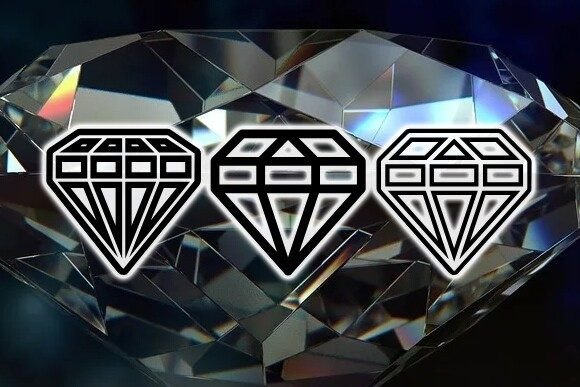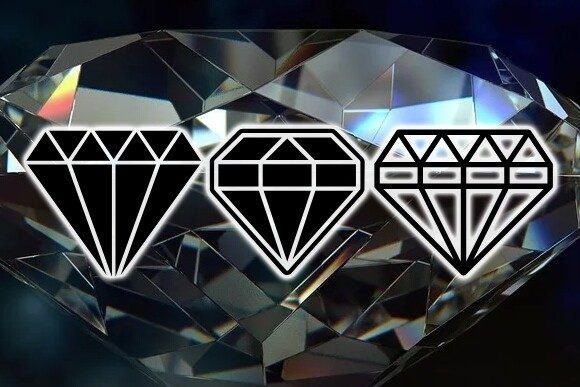
The Designer’s Delight: Unlocking the Power of Diamondo Font
Ah, the thrill of working on a new design project! The blank canvas, the endless possibilities, and the pressure to create something amazing. I recall a particularly challenging project where I was tasked with creating a poster for a luxury jewelry brand. The client wanted something elegant, sophisticated, and eye-catching. As I scrolled through my font library, I stumbled upon Diamondo – a dingbat font that would change the game.
So, what makes Diamondo so special? Here are a few things that I absolutely love:
- ✨ Unique and Versatile: Diamondo is an awesome dingbat that can be used in a variety of designs, from posters and flyers to social media graphics and more.
- ✅ Elegant and Sophisticated: The font’s luxurious feel makes it perfect for high-end brands, weddings, and other special occasions.
- 💫 Easy to Use: Diamondo is incredibly easy to use, even for those who are new to working with dingbat fonts.
Of course, no font is perfect, and Diamondo has a few quirks:
- 🤔 Limited Character Set: As a dingbat font, Diamondo has a limited character set, which can be a bit restrictive for some users.
- ⚠️ Not Suitable for Body Text: Diamondo is best used as an accent font or for headlines, as it’s not suitable for body text.
Diamondo was inspired by the luxury and glamour of diamonds. The font’s designer wanted to create a dingbat font that would evoke the feeling of high-end jewelry and sophistication. With its elegant lines and luxurious feel, Diamondo is the perfect font for designers who want to add a touch of glamour to their designs.
- Q: What is Diamondo?
- A: Diamondo is a dingbat font that’s perfect for adding a touch of luxury and sophistication to your designs.
- Q: Is Diamondo easy to use?
- A: Yes, Diamondo is incredibly easy to use, even for those who are new to working with dingbat fonts.
- Q: Is Diamondo available in different languages?
- A: Diamondo is a dingbat font that doesn’t support language-specific characters, but it can be used in any language.